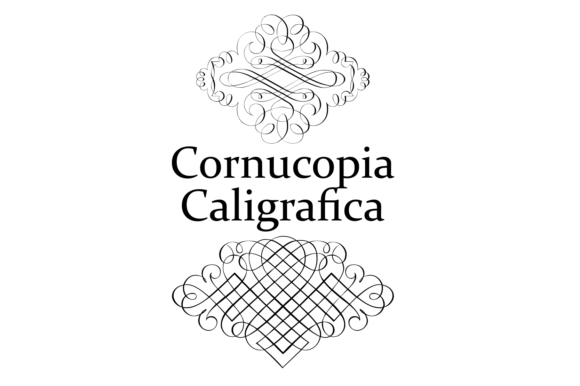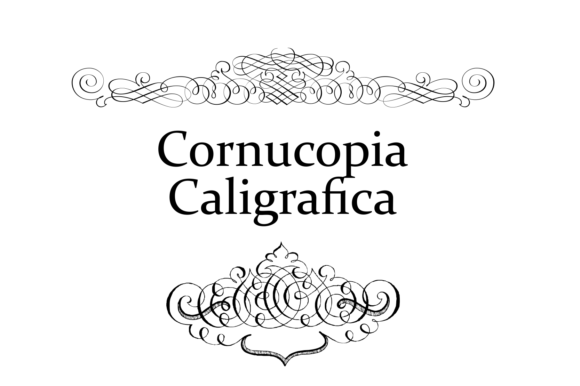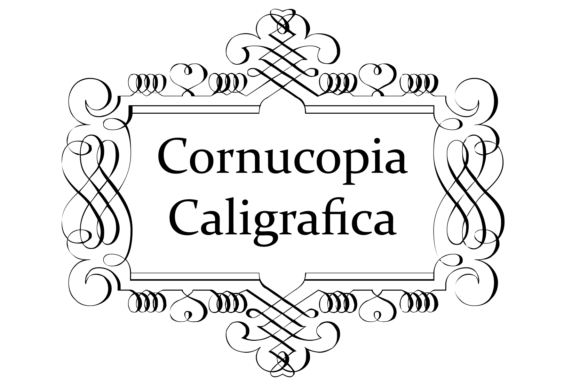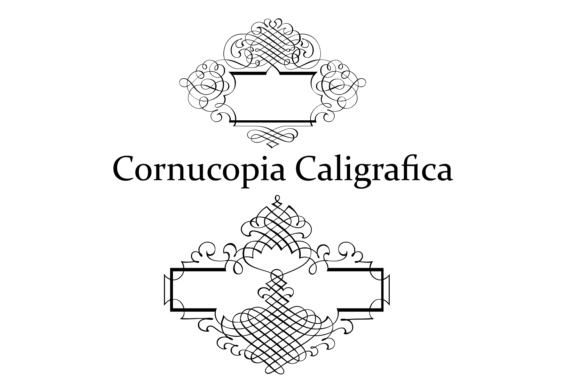
Cornucopia Caligrafica Font: A Timeless Blend of Classical Penmanship Ornaments
In the world of typography, few fonts have managed to capture the essence of classical penmanship as elegantly as the Cornucopia Caligrafica. This exquisite font is a masterful blend of traditional calligraphy and modern design elements, making it a treasure trove of creative possibilities for designers and crafters alike.
The Origins of Cornucopia Caligrafica
The Cornucopia Caligrafica font is an innovative creation that draws inspiration from the rich heritage of classical penmanship. Its name, “Cornucopia,” is derived from the Latin word for “horn of plenty,” symbolizing the abundance of ornate flourishes and intricate details that characterize this font.
By combining the timeless elegance of traditional calligraphy with the versatility of modern design, the Cornucopia Caligrafica font has become a go-to choice for designers seeking to add a touch of sophistication and refinement to their projects.
Key Features of Cornucopia Caligrafica
So, what sets the Cornucopia Caligrafica font apart from other typography options? Here are some of its key features:
- Classical Ornaments: The Cornucopia Caligrafica font boasts an impressive array of classical penmanship ornaments, including intricate swashes, flourishes, and ligatures.
- Elegant Lines: The font’s lines are characterized by a sense of fluidity and elegance, evoking the feel of handwritten calligraphy.
- Versatile: The Cornucopia Caligrafica font is highly versatile, making it suitable for a wide range of design applications, from wedding invitations and stationery to logos and branding.
- Digital Optimization: The font has been carefully optimized for digital use, ensuring that it remains crisp and clear even at small sizes.
Design Applications for Cornucopia Caligrafica
The Cornucopia Caligrafica font is a versatile design tool that can be used in a variety of creative projects. Here are some ideas to get you started:
- Wedding Invitations and Stationery: Add a touch of elegance and sophistication to your wedding invitations, stationery, and other paper goods with the Cornucopia Caligrafica font.
- Logos and Branding: Use the font to create stunning logos and branding materials that exude refinement and luxury.
- Signage and Display: The Cornucopia Caligrafica font is perfect for creating eye-catching signage and display materials, such as storefront signs, banners, and posters.
- Packaging and Product Design: Add a touch of classic elegance to your product packaging and design with the Cornucopia Caligrafica font.
Tips for Working with Cornucopia Caligrafica
To get the most out of the Cornucopia Caligrafica font, here are some tips to keep in mind:
- Experiment with Swashes and Flourishes: Don’t be afraid to get creative with the font’s intricate swashes and flourishes. Experiment with different combinations to add visual interest to your designs.
- Mix and Match: Combine the Cornucopia Caligrafica font with other typography options to create visually striking contrasts and hierarchies.
- Pay Attention to Kerning: As with any font, pay close attention to kerning and letter spacing to ensure that your text remains legible and visually appealing.
In conclusion, the Cornucopia Caligrafica font is a true treasure trove of creative possibilities for designers and crafters. Its unique blend of classical penmanship ornaments and modern design elements makes it an ideal choice for a wide range of design applications. Whether you’re looking to add a touch of elegance to your wedding invitations or create stunning logos and branding materials, the Cornucopia Caligrafica font is sure to impress.